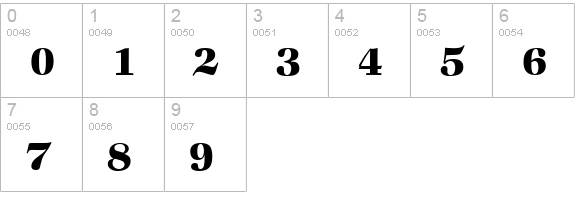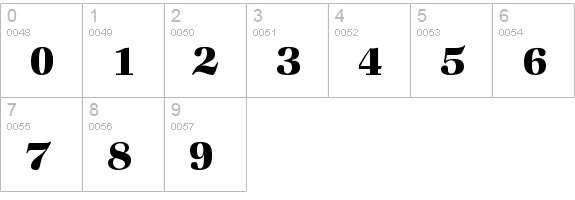
ZabriskieBook-Bold Font Details
ZabriskieBook-Bold is a strong, high-contrast variant in the ZabriskieBook typeface family \xE2\x80\x94 well suited to headlines, attention-grabbing titles, and strong calls-to-action.
Introducing ZabriskieBook-Bold, a bold and striking font perfect for making a statement in your designs. This versatile typeface exudes confidence and modernity, making it ideal for a wide range of projects, from branding to editorial design. With its strong, clean lines and unique character shapes, ZabriskieBook-Bold demands attention and brings a touch of sophistication to any layout. What sets ZabriskieBook-Bold apart is not just its boldness, but also the sense of freedom and creativity it embodies. This font allows you to break free from convention and explore new possibilities in your design work. Whether you're looking to make a bold statement or add a touch of flair to your project, ZabriskieBook-Bold is sure to deliver. Best of all, ZabriskieBook-Bold is freely available to download at FontsMarket.com. This means you can access this stylish and eye-catching font without any cost, allowing you to elevate your designs without breaking the bank. Don't miss out on the opportunity to add ZabriskieBook-Bold to your font collection and unleash your creativity today!